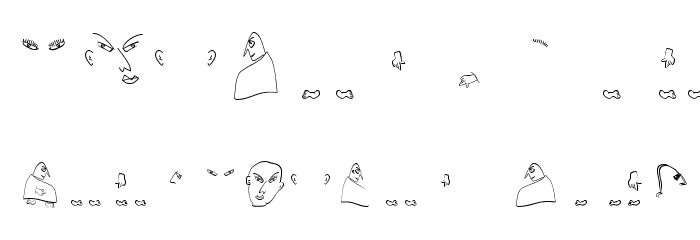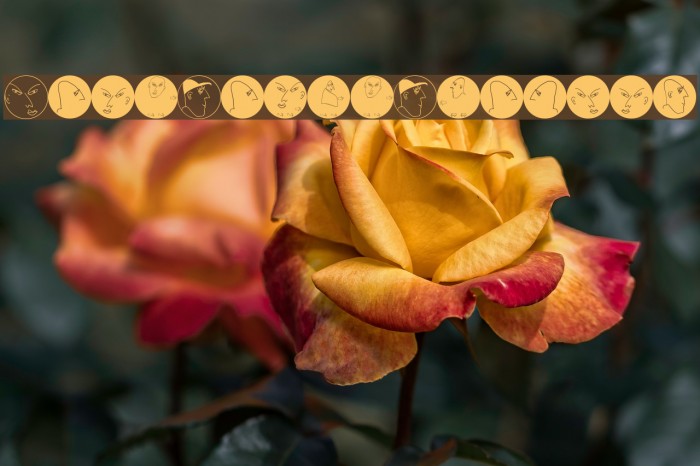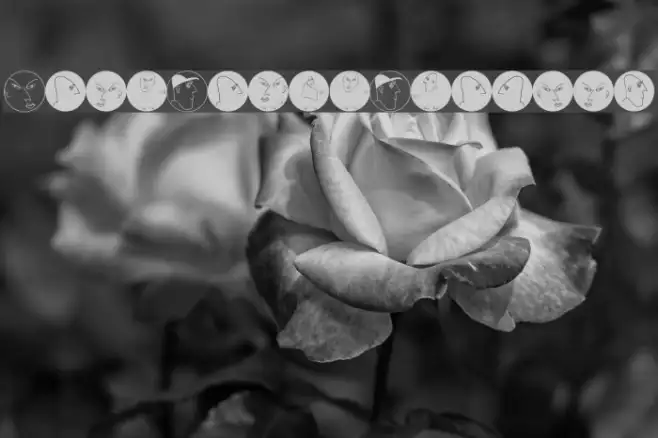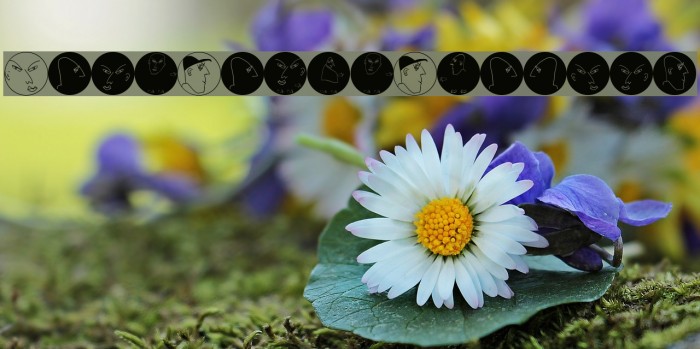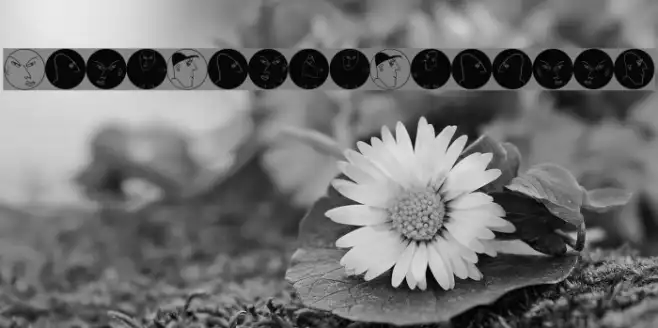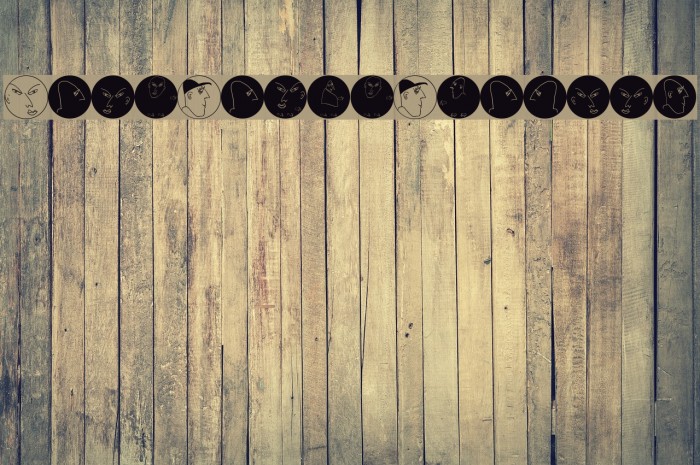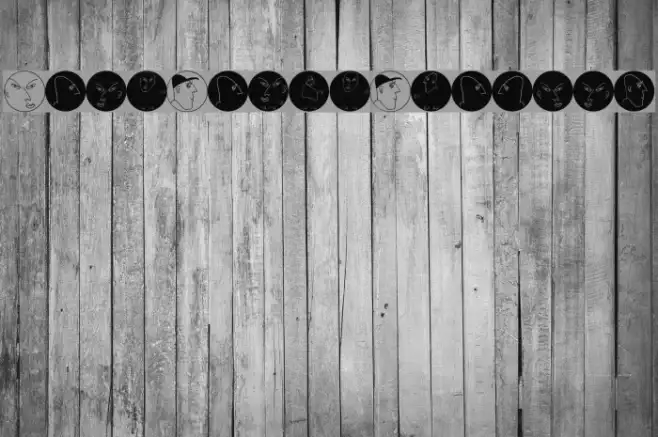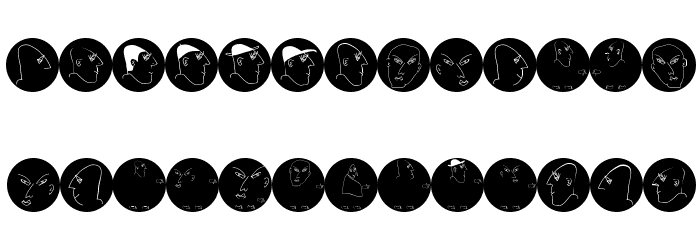
MansPartsPlaying Font
This is not a traditional font but rather a collection of abstract illustrations featuring various human faces and profiles. Each character is represented by a unique artistic depiction, often enclosed within circular frames. The designs are minimalist, using simple lines to convey facial features and expressions. The overall style is artistic and abstract, focusing more on visual art than typography. The characters are not designed for textual representation but rather for decorative or illustrative purposes.
An abstract collection of human face illustrations, not a traditional font.
• Proposed Projects: Ideal for artistic projects, graphic design elements, or creative illustrations where unique human expressions are needed.
• Category: Decorative/Display
• Contrast: Medium
• Overall Style: Artistic, Abstract
• Use Case: Illustrations, Art projects, Graphic design